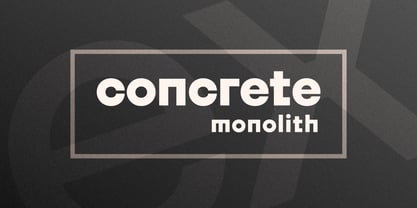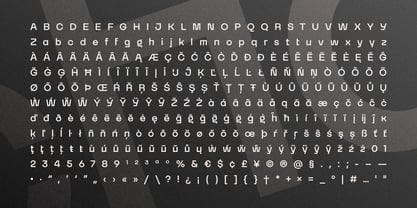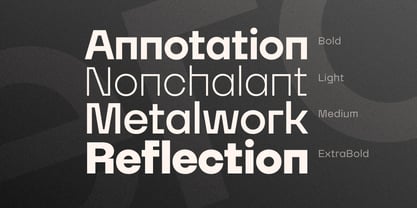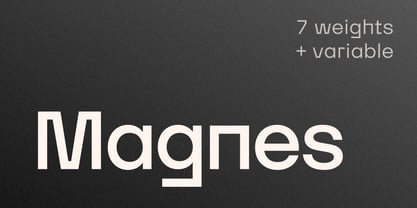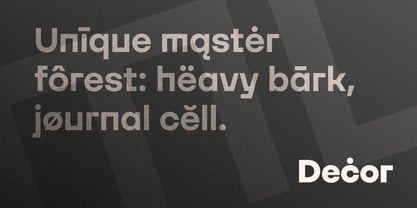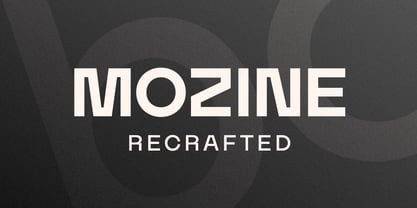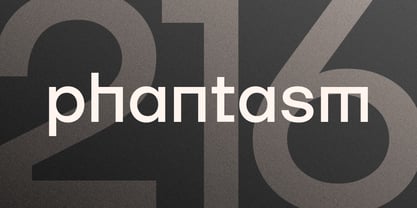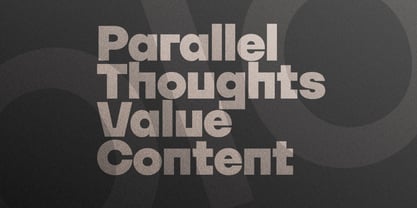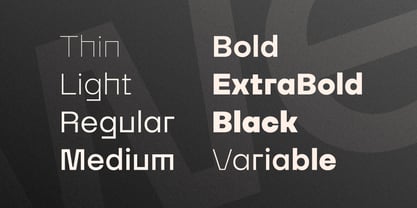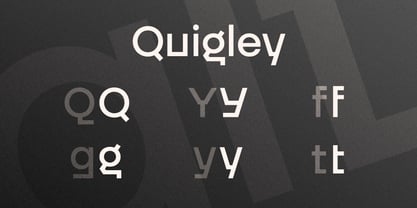
Magnes
Magnes is a structural sans-serif typeface with a sharp engineered character and distinct geometric cuts. The combination of precise geometry and hidden inner dynamics makes it a versatile solution for both ultra-tech interfaces and uncompromising, dense graphic manifestos. The family consists of 7 static weights from Thin to Black alongside a variable font, offering comprehensive extended Latin multilingual support.
Roman Melikhov, a type designer with vast experience in logo creation, channels the insights gained from his logo work into his font designs. His process involves unexpected creative solutions and offbeat methodologies. He prioritizes originality and identity, enabling him to infuse even minimalist typefaces with unparalleled uniqueness. Meticulous attention to detail during font production ensures the utmost accuracy in the final outcome.